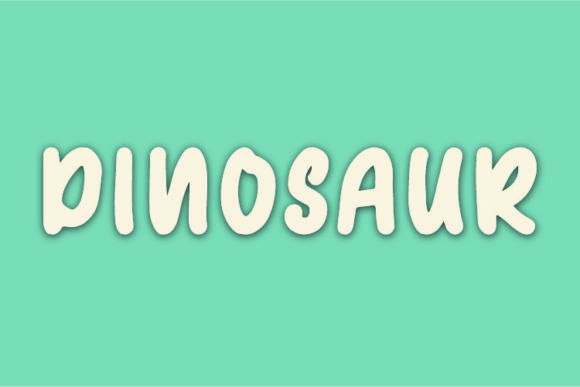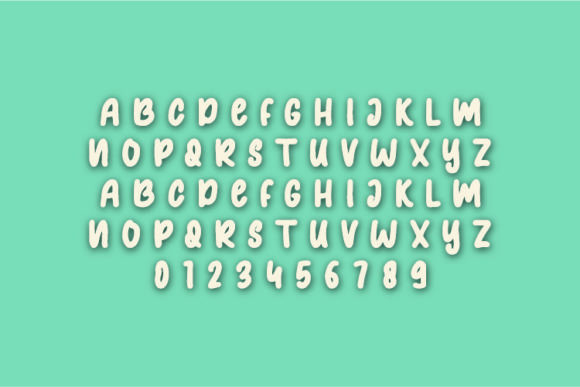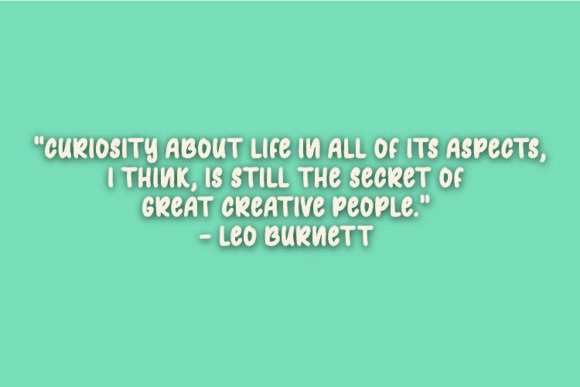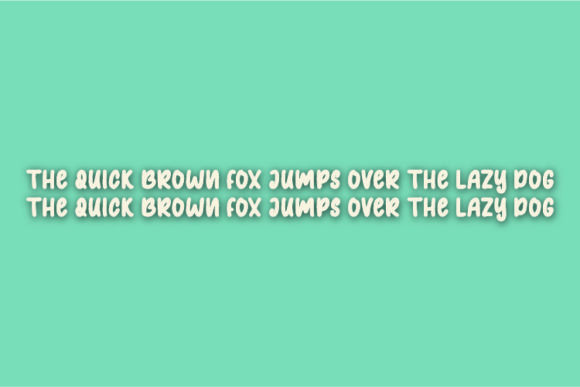
Dinosaur Font
About Dinosaur Font
Dinosaur is a clean, friendly and natural handwritten font. Whether you’re using it for crafts, digital design, presentations, or making greeting cards, this font has the potential to become your favorite go-to font, no matter the occasion!